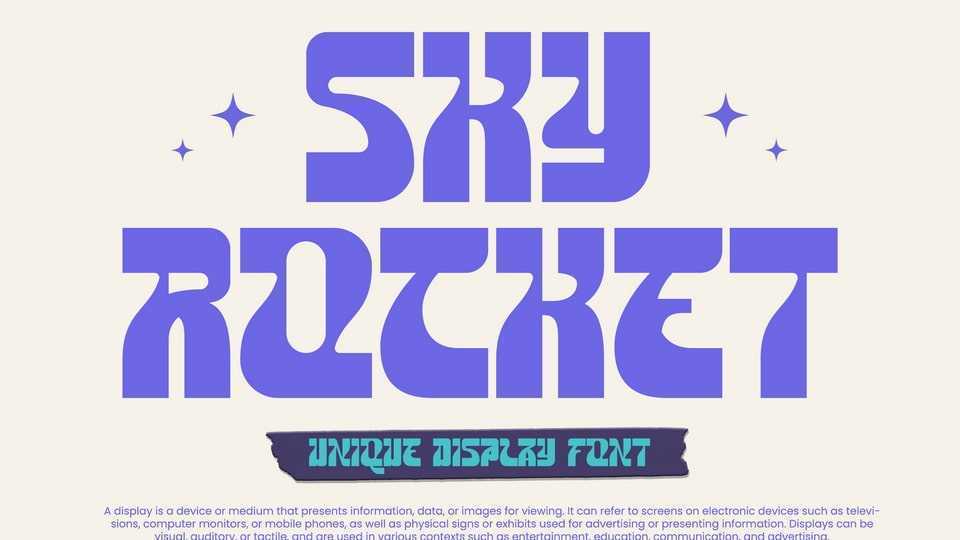
Download Sky Rocket font, a display typeface inspired by a streak that hopes to become its name, namely rocket, which makes this font or the designs that use it fly high.